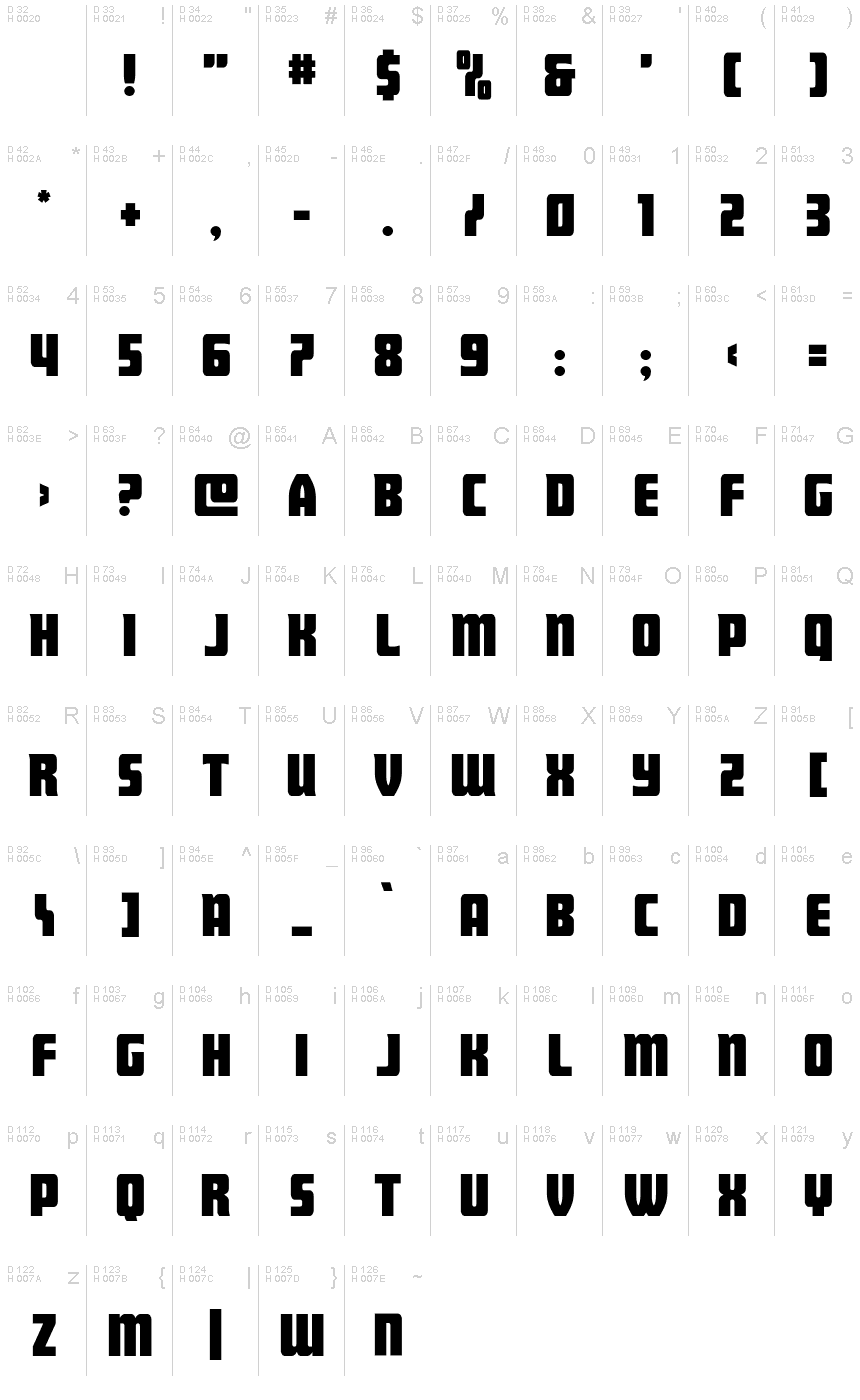
Intrepid Spear Straight
Intrepid Spear Straight, from the Intrepid Spear font family designed by Iconian Fonts, is a testament to bold creativity in typographic design. This extra-bold, condensed display font exudes a techno style that captures attention with its strikingly sharp characters and futuristic edge. The visual aesthetics of Intrepid Spear Straight are characterized by clean lines and an authoritative presence that make it perfect for high-impact headlines, posters, and branding projects seeking a modern touch.
The font's innovative character construction offers a compelling blend of functionality and style, suitable for various creative endeavors. With two sub-families—Regular and Lower Case—Intrepid Spear presents versatility while maintaining its cohesive identity. Whether deployed in digital media or print, this typeface promises to deliver messages with conviction and contemporary flair.
The Intrepid Spear Straight is more than just a font; it's an expression of strength and forward-thinking design that stands out in any artistic or commercial context.